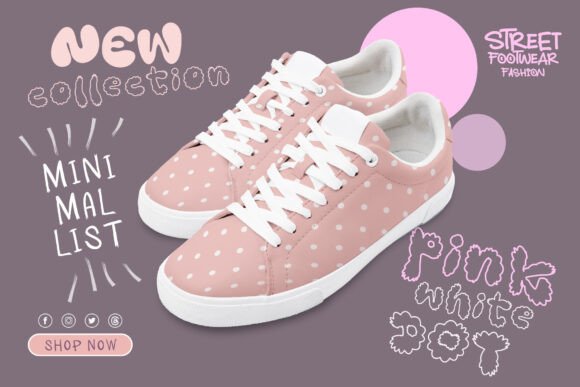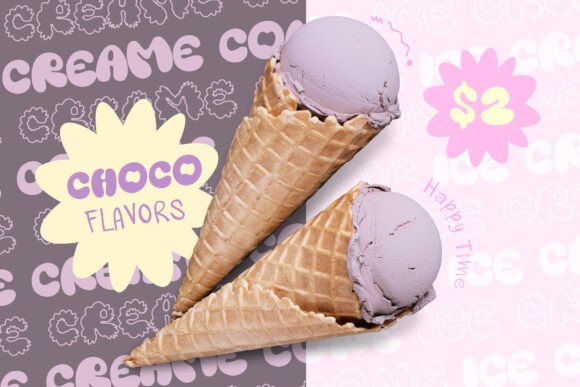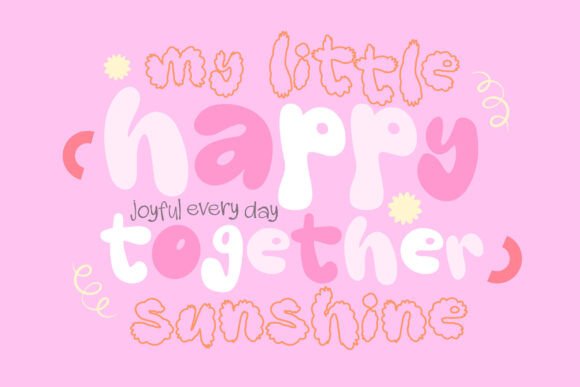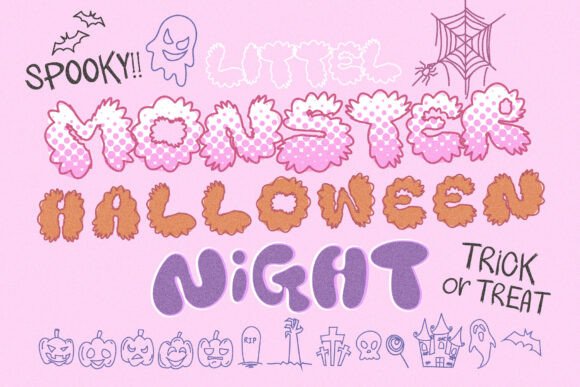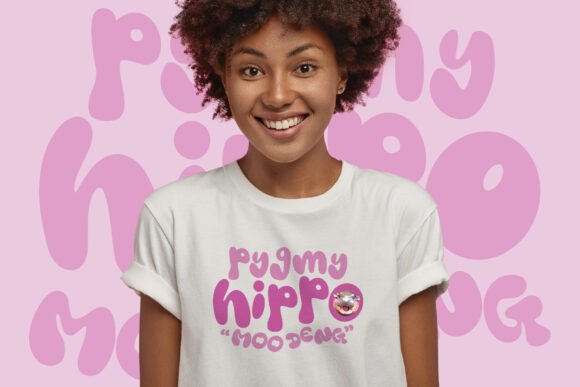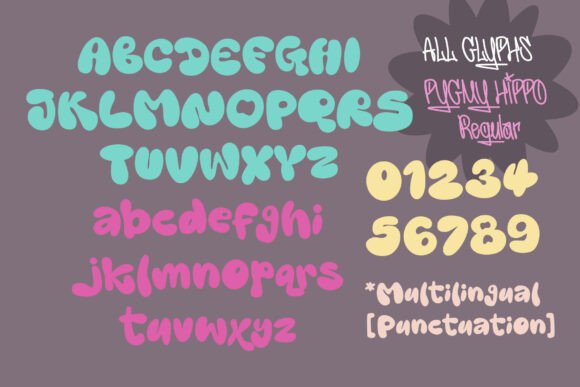
Introduction to Pygmy Hippo Font
Introducing Pygmy Hippo – a uniquely versatile triple threat comprising of an inviting bubbly display font, an interestingly distinct outline font, and an enthusiastic scribble handwritten font.
Its character lies in its capability to channel a sense of joy, authenticity, and creativity Pygmy Hippo is the ideal embodiment for any child-focused endeavor or the vibrant world of street art fashion.
Key Features of Pygmy Hippo Font